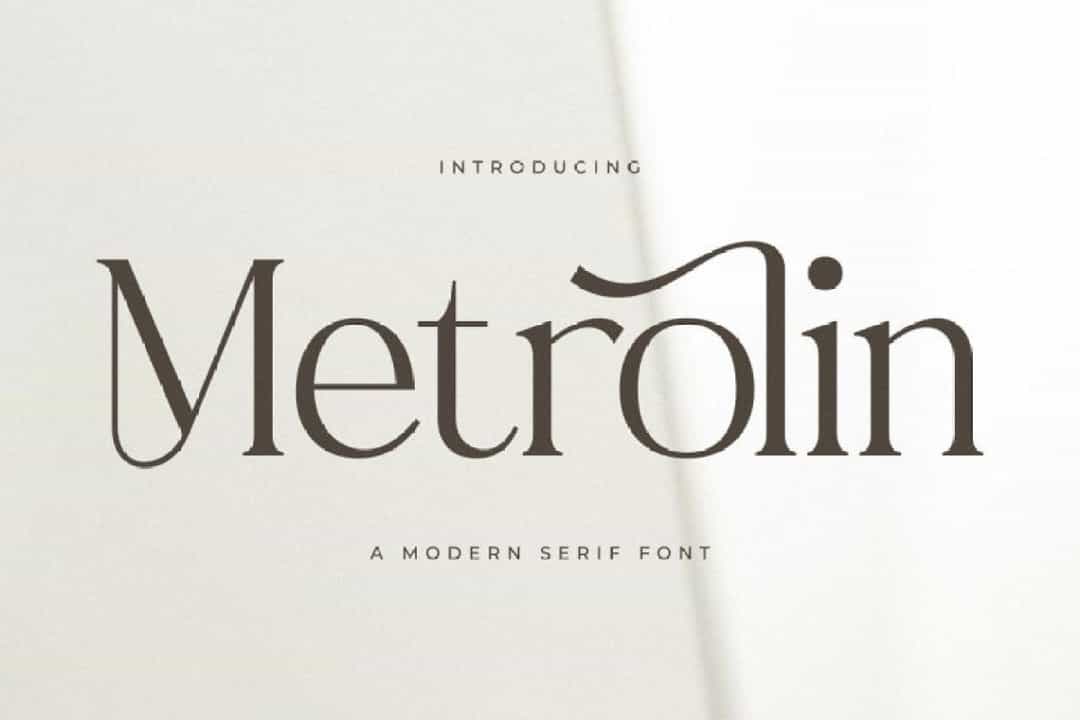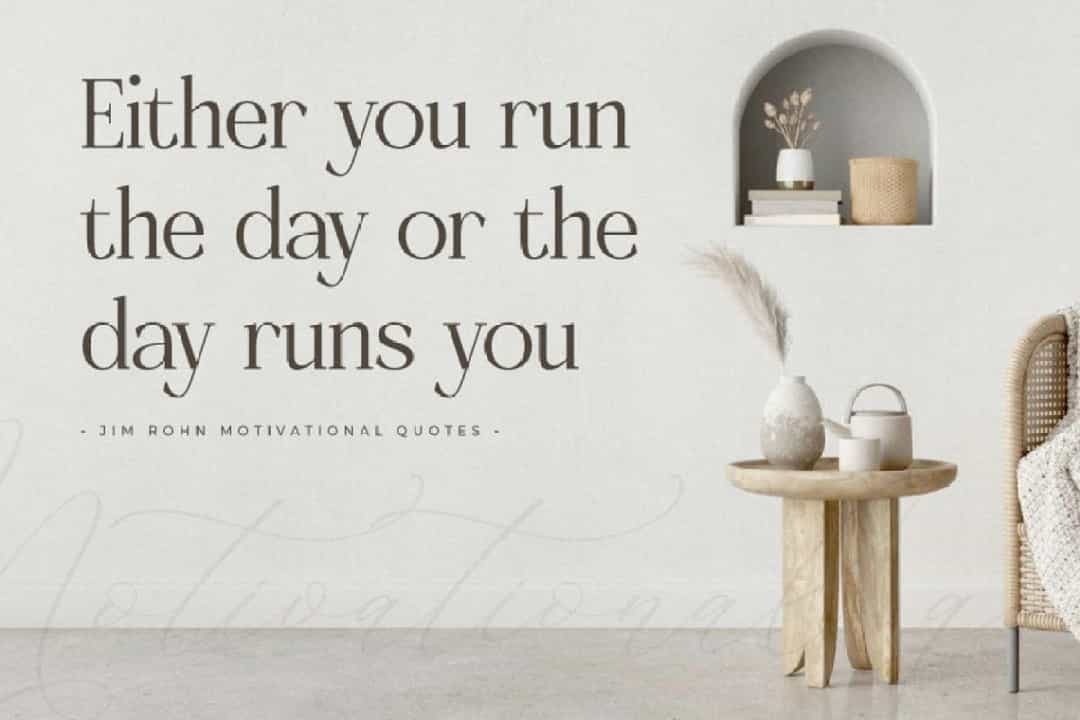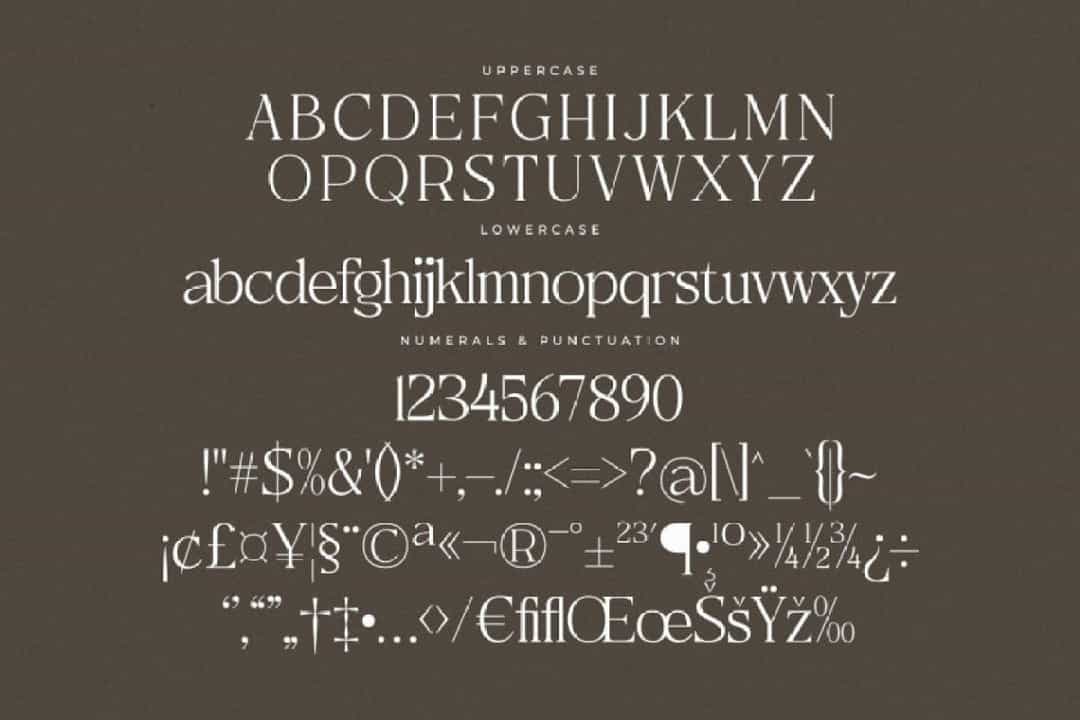
Metrolin is a contemporary classical serif typeface with its own distinct style and modern appearance, ideal for creating classy logos, movie or book title designs, fashion brand clothing designs, magazines lettering and quotes – and much more! This typeface can also help add flair and elegance to movie or book title designs and movie posters!